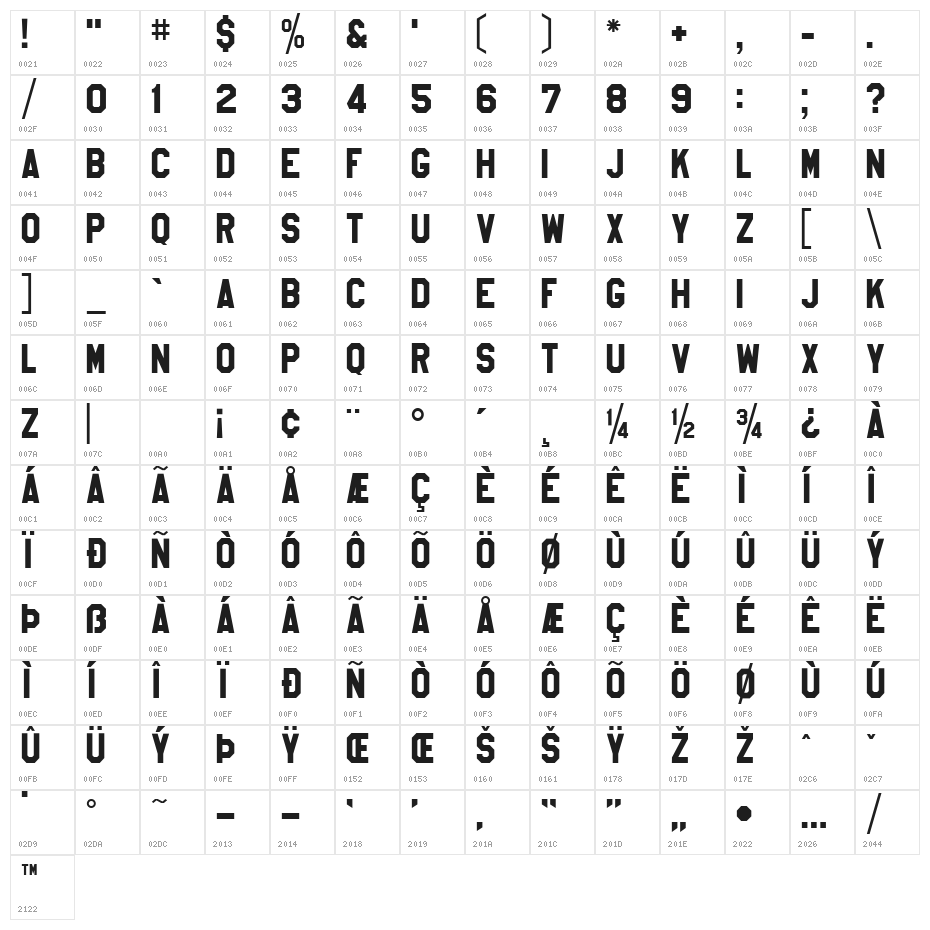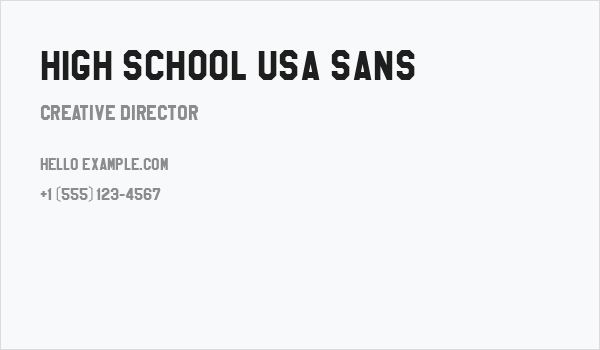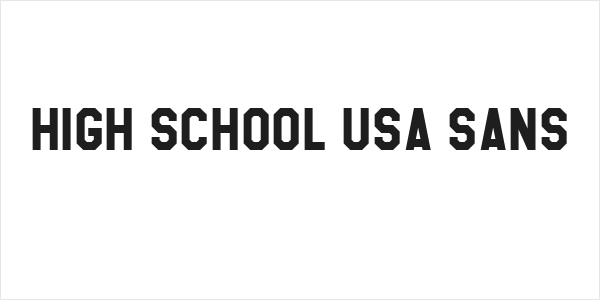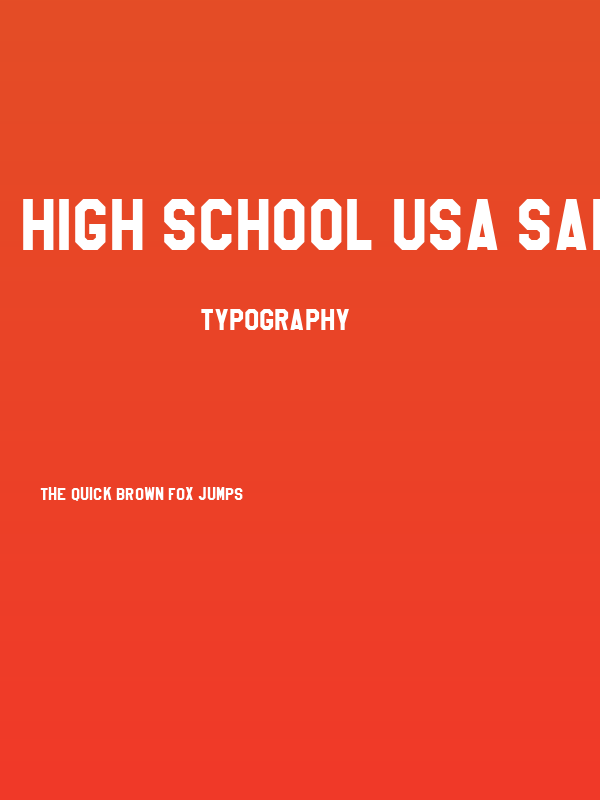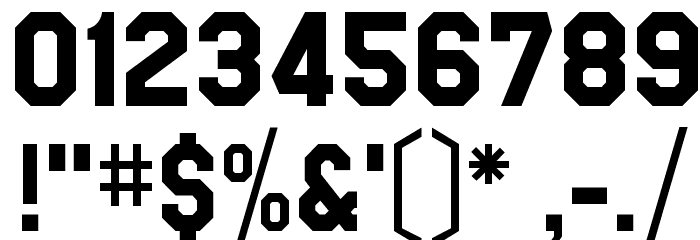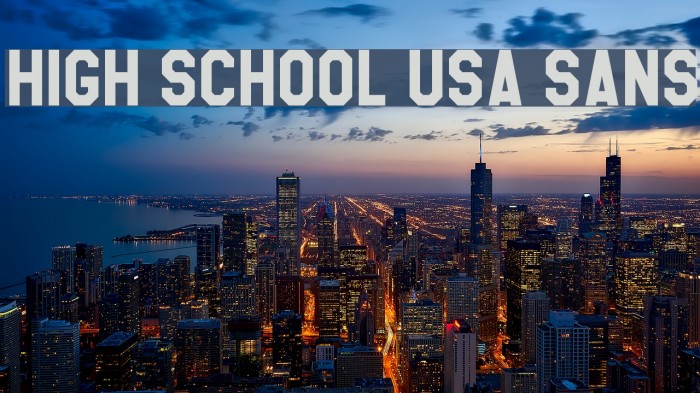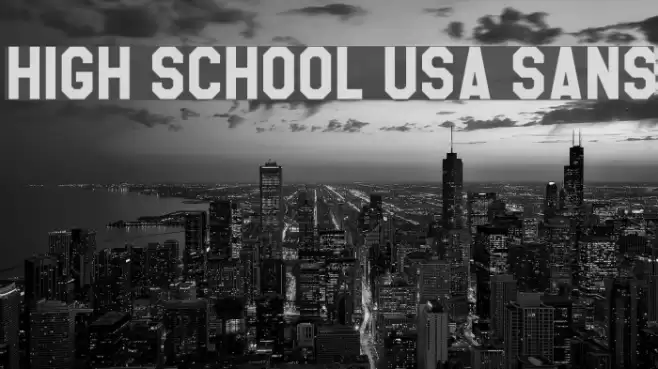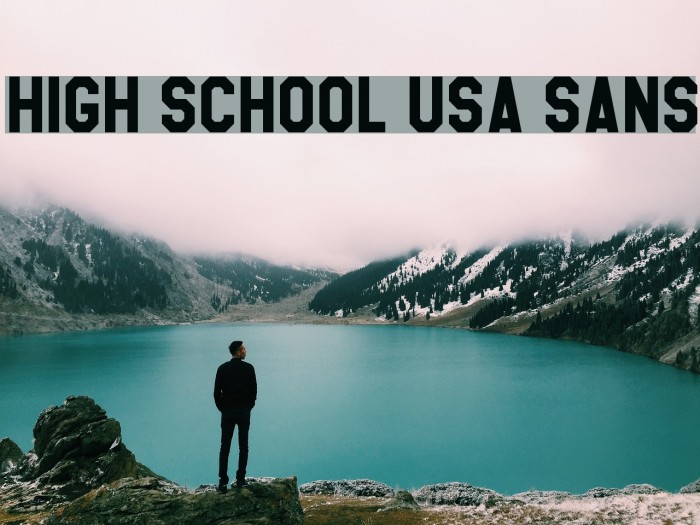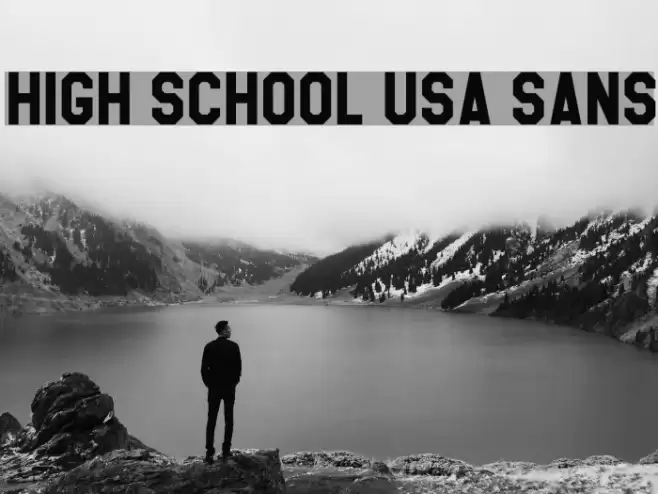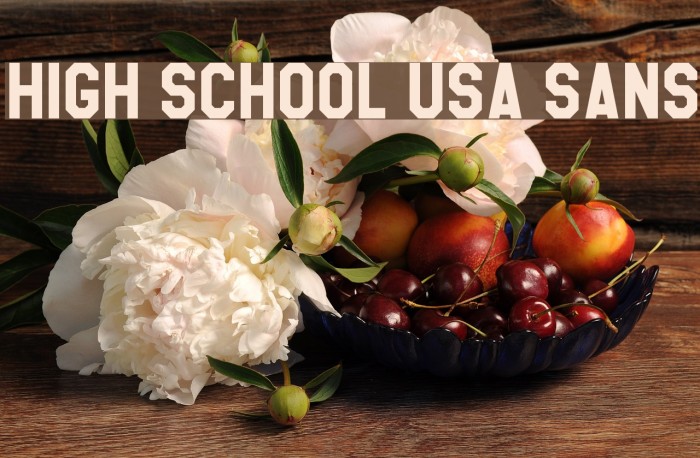
High School USA Sans Font
High School USA Sans Description
This font features a bold, geometric sans-serif style with a strong presence. The characters are blocky and angular, giving it a robust and impactful appearance. The uppercase letters are uniform in height, while the numbers and special characters maintain the same boldness, ensuring consistency across all elements. The font's design is reminiscent of athletic or collegiate themes, making it ideal for projects that require a sense of strength and tradition. The clean lines and lack of serifs contribute to its modern appeal, while the bold weight ensures readability from a distance.
| Proposed Projects | Ideal for sports team branding, school logos, posters, and merchandise that require a bold and impactful typeface. |